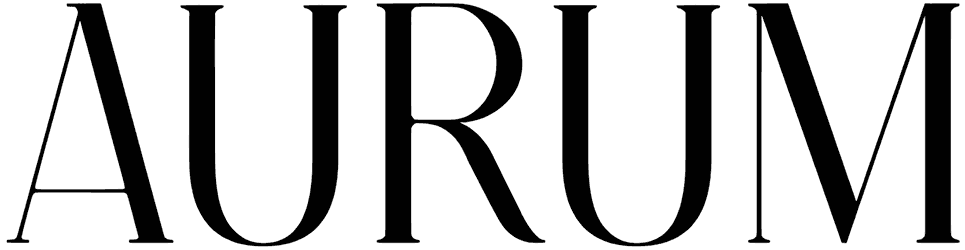
Aurum Font
No one can deny the fact that serif fonts are always so popular for any design, from formal to informal ones. The timeless and elegant visual of the Aurum font can give a unique allure to your fall fashion event flyer. This luxurious font could be added to your next project and make it professional and salient.